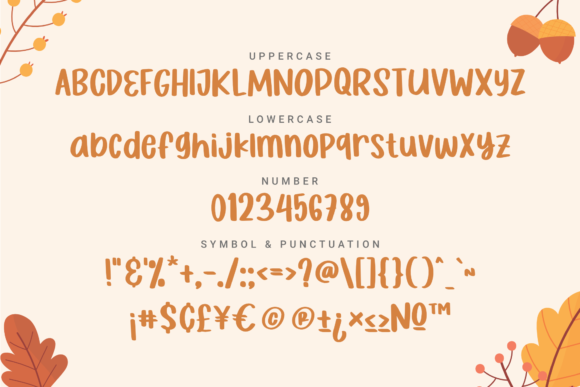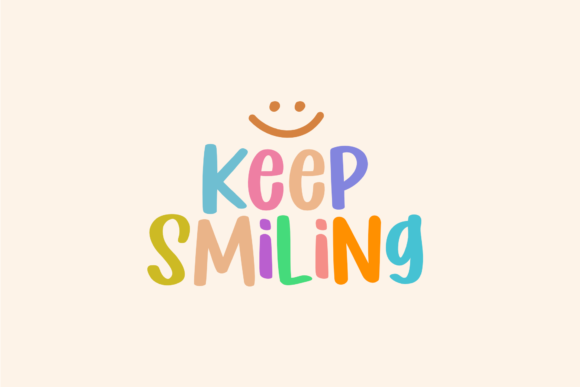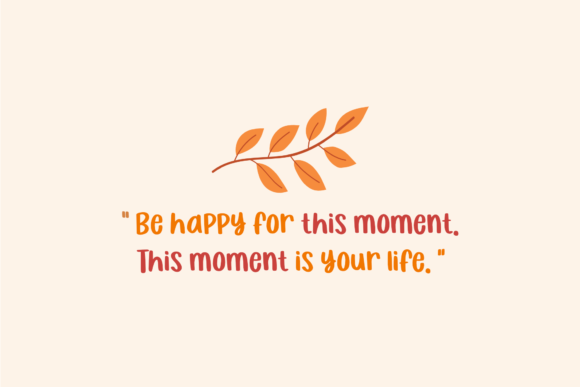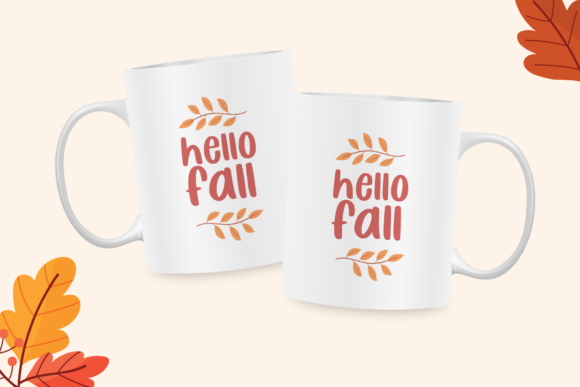
Introducing Chilly Autumn Font: The Perfect Choice for Playful Designs
Are you a designer or crafter looking for a font that can add a touch of joy and playfulness to your creations? Look no further than Chilly Autumn Font! This cool and playful display font is perfect for a wide range of design projects, from cartoon-related designs and children’s games to quotes, titles, brand names, book covers, posters, and more.
What Makes Chilly Autumn Font So Special?
Chilly Autumn Font is a unique and eye-catching font that is sure to grab attention. Its playful and fun design makes it perfect for projects that require a youthful and energetic feel. The font’s cool and modern style ensures that it will fit right in with contemporary designs, while its versatility means it can be used in a wide range of creative projects.
Perfect for Cartoon-Related Designs and Children’s Games
If you’re working on a cartoon-related design project or creating a children’s game, Chilly Autumn Font is an excellent choice. The font’s playful and fun design is perfect for bringing your cartoon characters to life, and its clear and easy-to-read style ensures that it will be easy for kids to read and understand.
Add a Touch of Joy to Your Quotes and Titles
Chilly Autumn Font is also a great choice for quotes and titles. The font’s modern and stylish design ensures that your quotes and titles will stand out, while its playful and fun style adds a touch of joy and whimsy. Whether you’re creating a motivational poster or a social media graphic, Chilly Autumn Font is sure to make your text shine.
Great for Brand Names and Book Covers
In addition to its use in cartoon-related designs and children’s games, Chilly Autumn Font is also a great choice for brand names and book covers. The font’s unique and eye-catching design ensures that your brand or book will stand out, while its modern and stylish style gives it a professional and contemporary feel.
Key Features of Chilly Autumn Font
- Cool and playful display font
- Perfect for cartoon-related designs, children’s games, quotes, titles, brand names, book covers, posters, and more
- Unique and eye-catching design
- Modern and stylish style
- Clear and easy-to-read
- Versatile and can be used in a wide range of creative projects
Tips for Using Chilly Autumn Font
In conclusion, Chilly Autumn Font is a cool and playful display font that is perfect for a wide range of design projects. Its unique and eye-catching design, modern and stylish style, and versatility make it a great choice for designers and crafters looking to add a touch of joy and playfulness to their creations. Whether you’re working on a cartoon-related design, children’s game, quote, title, brand name, book cover, poster, or any other creative project, Chilly Autumn Font is sure to be a great choice.